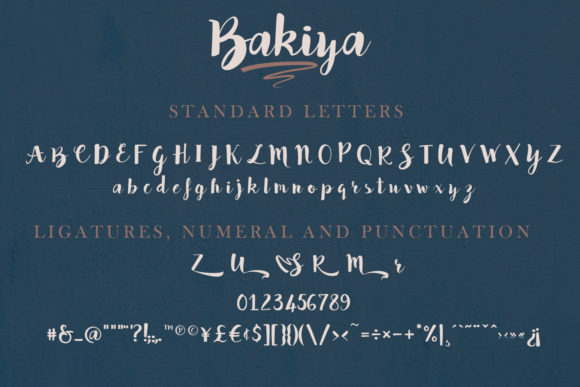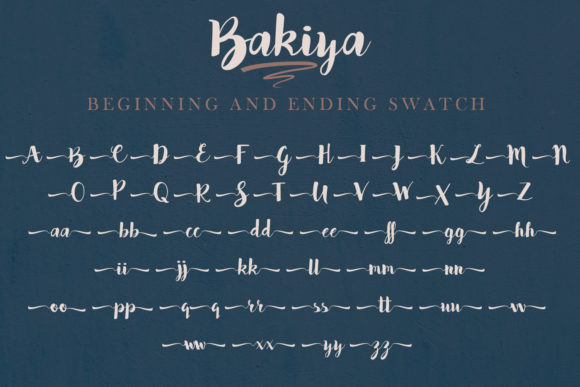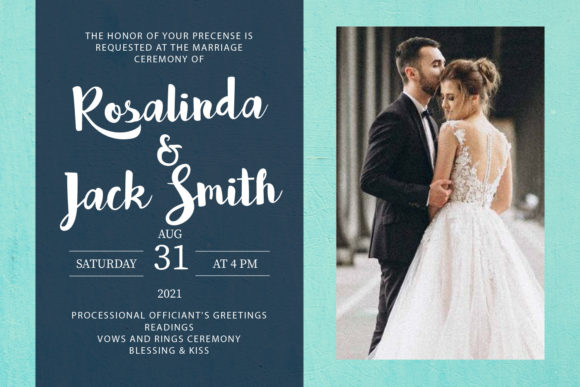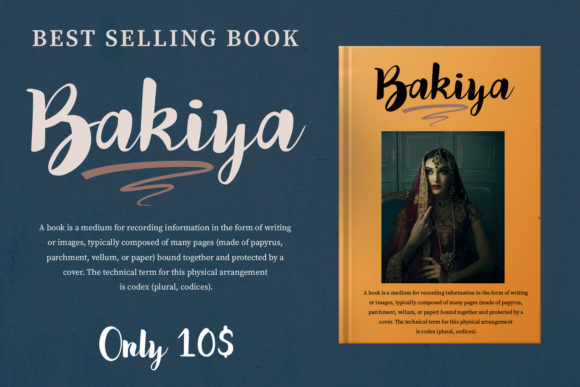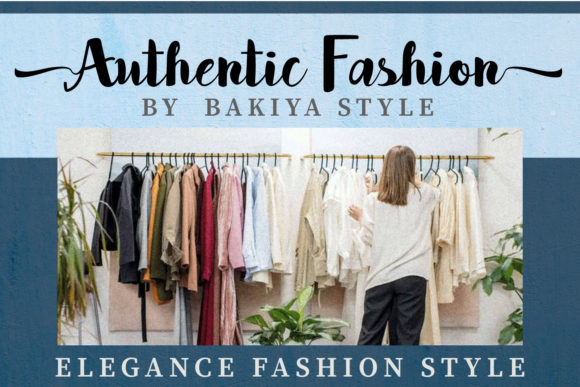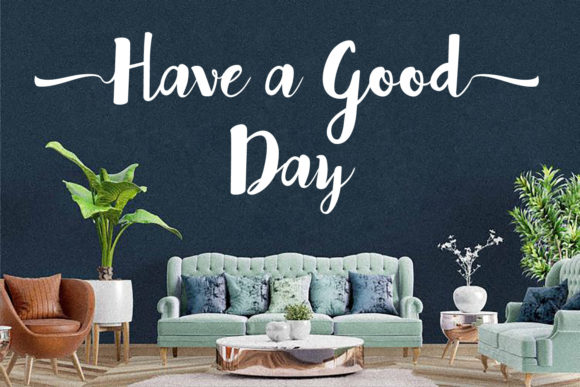
Unlock the Power of Handwritten Style with the Bakiya Font
There’s nothing quite like the thrill of brainstorming a new project, surrounded by scattered ideas and half-finished sketches. The blank page stares back at you, waiting for the magic to begin. As you start to envision your creation, you know that the right font can make all the difference. That’s where the Bakiya Font comes in – a chic and trendy handwritten font that’s about to become your new best friend.
This versatile font is more than just a pretty face; it’s a game-changer for designers looking to add a personal touch to their work. With its PUA encoding, you’ll have access to all the glyphs and swashes you need to elevate your projects to the next level. Whether you’re working on a blog post, social media graphics, or even a book cover, the Bakiya Font is an incredible asset to have in your toolkit.
Bakiya Font Key Features
- Font Family: Bakiya Font is a display font designed for use in digital and print media.
- Size: The font includes 4 different sizes: 18pt, 24pt, 36pt, and 48pt, making it suitable for various applications.
- Resolution: Designed for high-resolution displays (minimum 300 DPI), ensuring crisp and clear text rendering.
- Unique Characteristics: Bakiya Font features a unique blend of traditional and modern design elements, making it stand out in various design contexts.
- Font Styles: Includes regular, bold, italic, and bold italic styles, providing flexibility for designers and artists.
Bakiya Font Review
When I first laid eyes on the Bakiya font, I was immediately drawn to its unique and quirky aesthetic ✨. The font’s irregular shape and playful style make it perfect for adding a touch of whimsy to any design project. The font’s versatility is one of its strongest points, and it can be used for everything from branding and marketing materials to editorial and print design.
Here are some of the things I like about the Bakiya font:
- Its unique and playful style makes it perfect for adding a touch of personality to any design project ✨.
- The font’s versatility makes it suitable for a wide range of design applications.
- The font’s irregular shape adds visual interest and can help to break up blocks of text.
However, there are some limitations to the Bakiya font that I should mention ⚠️:
- The font may not be suitable for body text, as its irregular shape can make it difficult to read at smaller sizes.
- The font may not be suitable for formal or professional applications, as its playful style may be seen as too casual.
Overall, I think the Bakiya font is a great addition to any designer’s toolkit. While it may have some limitations, its unique style and versatility make it a great choice for a wide range of design projects.
To get the most out of Bakiya font, use it for:
- Headings and titles for a unique and eye-catching look.
- Body text for a clean and modern aesthetic.
- Combining with other fonts for a layered and interesting design.
Remember to adjust the font size and style to ensure readability and balance in your design.
Alternatives to Bakiya Font for Designers
Great Vibes is a modern, elegant script font suitable for invitations, wedding stationery, and other creative projects. It’s a great choice for designers looking for a stylish and sophisticated look.
Compared to Bakiya Font, Great Vibes has a more refined and polished appearance. While Bakiya Font has a unique, hand-drawn feel, Great Vibes is more streamlined and versatile.
Alex Brush is a beautiful, handwritten font ideal for creative projects, such as quotes, posters, and greeting cards. It’s perfect for designers who want to add a touch of personality and whimsy to their designs.
Compared to Bakiya Font, Alex Brush has a more organic and expressive feel. While Bakiya Font is more geometric and structured, Alex Brush is loose and flowing.
Carolyna Pro is a modern, sans-serif font suitable for corporate projects, such as business cards, resumes, and presentations. It’s a great choice for designers who want a clean and professional look.
Compared to Bakiya Font, Carolyna Pro is more formal and structured. While Bakiya Font has a unique, artistic feel, Carolyna Pro is more conventional and easy to read.